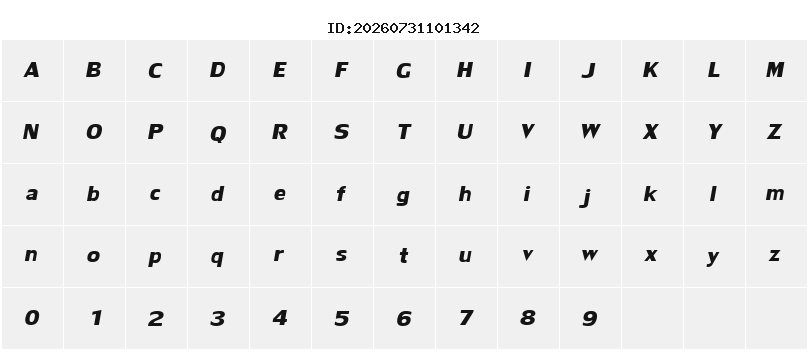
Lily News Preview
About Lily News.ttf
Lily News.ttf is a modern, elegant sans-serif font designed for ultimate readability and visual harmony. Perfect for branding, headlines, web design, and print materials.